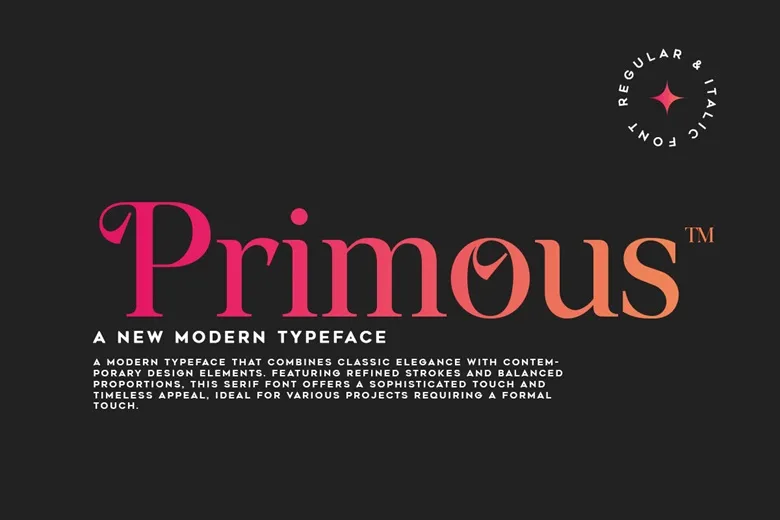
Primous Font
Primous Font is a new serif font which comes in a stylish and up-to-date design, along with the OpenType feature that will allow you to control the large set of options and stylistic sets, choosing the best font from the large and small variants to create a luxurious and elegant atmosphere.